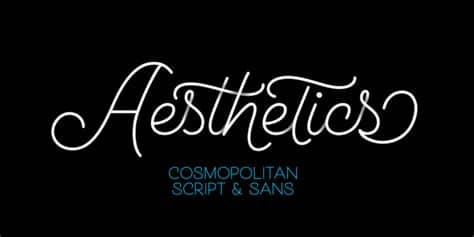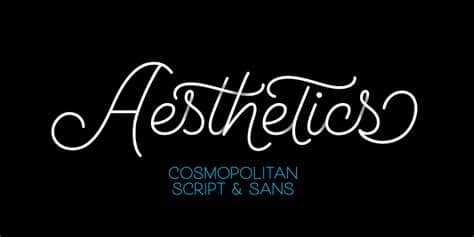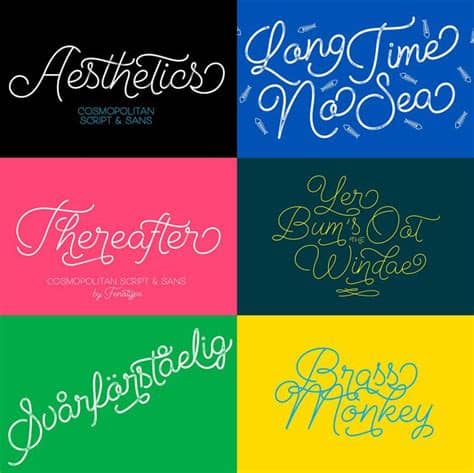
Cosmopolitan Script Font / Cosmopolitan Script & Sans + Extras | Font shop, Font ... : Download cosmopolitan font family · free for personal use · includes cosmopolitan regular, distressed · thankyou for downloading.. Every font is free to download! Download this family and get both elegant scripts. For extra swashes, swirls and pictograms. Handwriting font with a touch of classic and vintage. Cosmopolitan script font family designed by emil bertell has a total of 1 different styles.
Cosmopolitan is a monoline font family with script and sans versions that both work great together or alone. Designed by emil karl bertell, cosmopolitan is a dingbat, script and hand display font family. For extra swashes, swirls and pictograms. For extra swashes, swirls and pictograms.
Cosmopolitan is a monoline font family with a script and sans font that works great together or alone. It comes with five weights and printed versions. Download cosmopolitan font family · free for personal use · includes cosmopolitan regular, distressed · thankyou for downloading. Cosmopolitan is a monoline font family with script and sans versions that both work great together or alone. For extra swashes, swirls and pictograms there is. For extra swashes, swirls and pictograms. Cosmopolitan script & sans + extras. Cosmopolitan is a monoline font family with script and sans versions that both work great together or alone.
Cosmopolitan is a typeface designed by emil karl bertell, and is available for desktop, web, app, epub, and server.
It comes with five weights and printed versions. Cosmopolitan font script 15 otf cosmopolitan is a monoline font family with script and sans versions that both work great together or alone. For extra swashes, swirls and pictograms. Handwriting font with a touch of classic and vintage. Similar fonts for cosmopolitan script regular from creativemarket.com. You can download the cosmopolitan script font to your computer or use it on your website. It comes with five weights and printed versions. Cosmopolitan is a monoline font family with script and sans versions that both work great together or alone. Cosmopolitan is a monoline font family with script and sans versions that both work great together or alone. Cosmopolitan is a monoline font family with a script and sans font that works great together or alone. Designed by emil karl bertell, cosmopolitan is a dingbat, script and hand display font family. Download cosmopolitan font family · free for personal use · includes cosmopolitan regular, distressed · thankyou for downloading. In application font menus, this font will display:
Cosmopolitan is a monoline font family with a script and sans font that works great together or alone. For extra swashes, swirls and pictograms. Cosmopolitan is a monoline font family with script and sans versions that both work great together or alone. Cosmopolitan is a monoline font family with script and sans versions that both work great together or alone. In application font menus, this font will display: Handwriting font with a touch of classic and vintage. It comes with five weights and printed versions. Designed by emil karl bertell, cosmopolitan is a dingbat, script and hand display font family. Cosmopolitan font script 15 otf cosmopolitan is a monoline font family with script and sans versions that both work great together or alone. Cosmopolitan is a monoline font family with script and sans versions that both work great together or alone. You can download the cosmopolitan script font to your computer or use it on your website.
Cosmopolitan is a monoline font family with script and sans versions that both work great together or alone.
It comes with five weights and printed versions. Designed by emil karl bertell, cosmopolitan is a dingbat, script and hand display font family. Download this family and get both elegant scripts. · this font is for personal use. Fonts in the adobe fonts library include support for many different languages, opentype features, and typographic styles. Try, buy and download these fonts now! Cosmopolitan is a monoline font family with script and sans versions that both work great together or alone. You can download the cosmopolitan script font to your computer or use it on your website. It comes with five weights and printed versions. Nickainley is a monoline script font. Cosmopolitan is a monoline font family with script and sans versions that both work great together or alone. For extra swashes, swirls and pictograms there is.